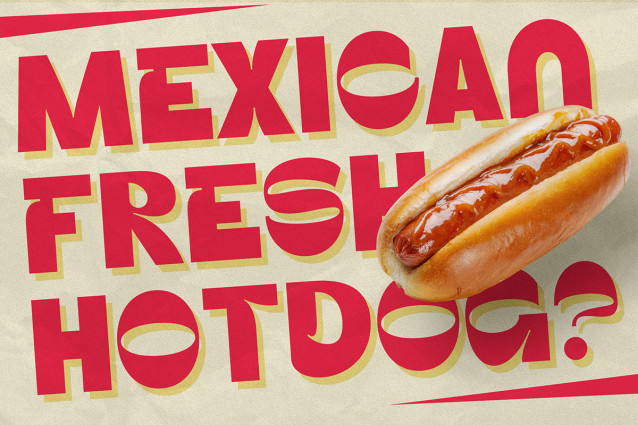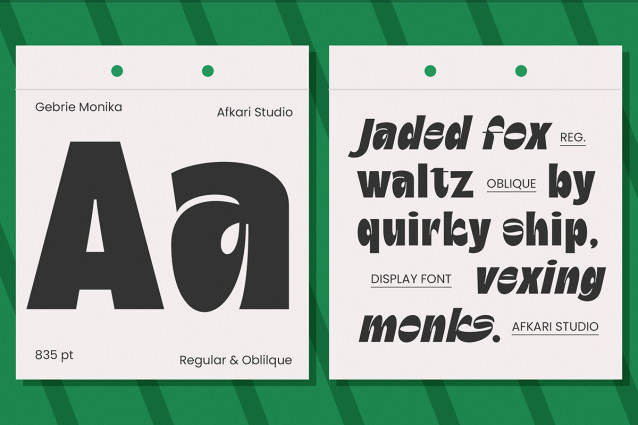
Gebrie Monika – Modern Display Sans Typeface Font
Gebrie Monika – Modern Display Sans Typeface
Gebrie Monika is a modern display sans typeface designed for clean, bold, and contemporary typography. With geometric shapes, balanced proportions, and a stylish modern aesthetic, Gebrie Monika delivers a strong visual presence for branding, headlines, and digital design.